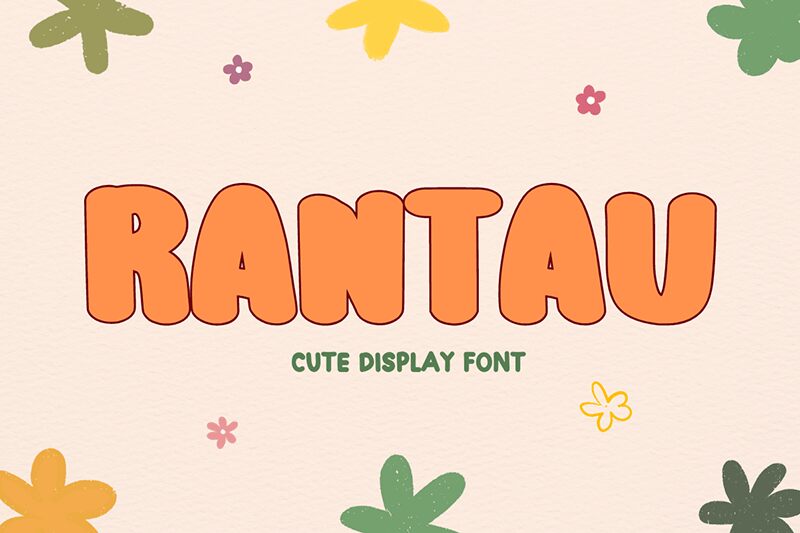
RANTAU
Rantau font by Muhammad Afif is a bold display font with rounded, thick letters designed in a cartoon style. Its casual, friendly, and approachable appearance gives the overall impression of something light-hearted and playful. Inspired slightly by retro designs, the fashionable typeface is the perfect mood setter which can be used for personal passion projects or even business projects where allowed.
Use this free display font to decorate titles on book covers, posters and flyers, package designs for children’s products like toys or candies, YouTube channel arts & other social media artworks related to kids entertainment etc. The Rantau typeface is also suitable for comics/manga designing purposes.